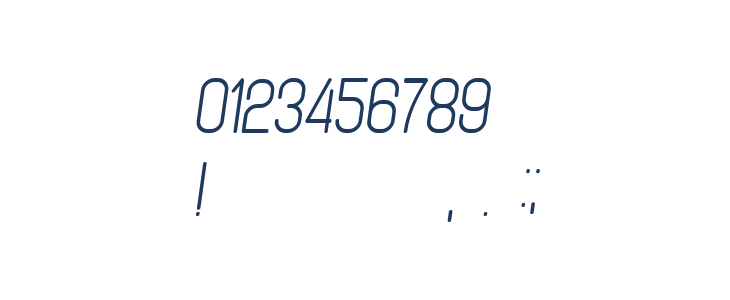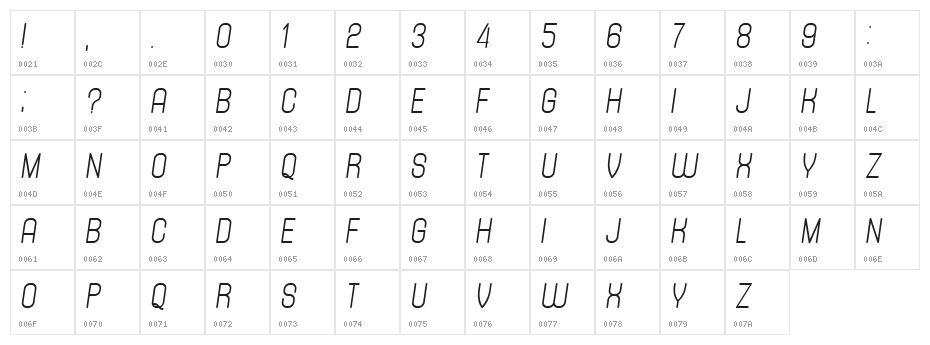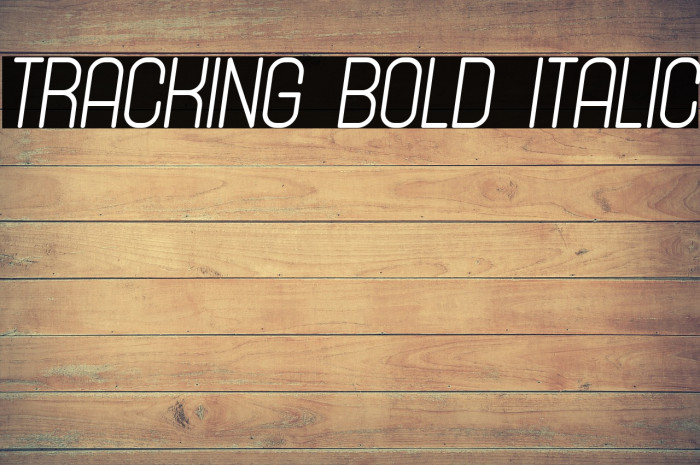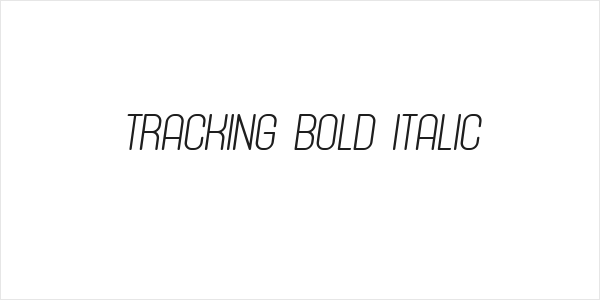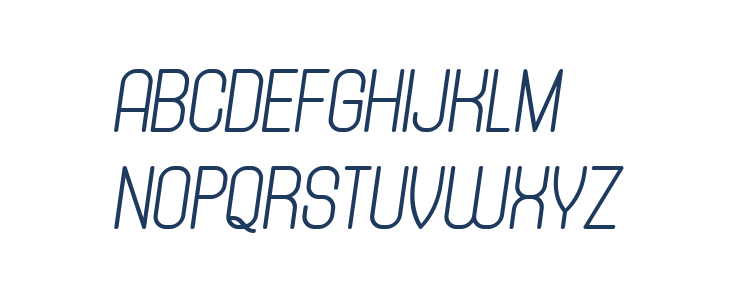
Tracking Bold Italic Font
Tracking Bold Italic Description
This font features a sleek, modern design with a distinct italic slant, giving it a dynamic and forward-moving appearance. The characters are elongated and slightly condensed, contributing to a streamlined look. The strokes are consistent in weight, providing a uniform and cohesive feel across all letters and numbers. The font's clean lines and minimalistic style make it suitable for contemporary design projects. It includes uppercase letters, numbers, and a limited set of punctuation marks, emphasizing its focus on simplicity and elegance.
| Proposed Projects | Ideal for branding, advertising, and editorial design where a modern and dynamic look is desired. |